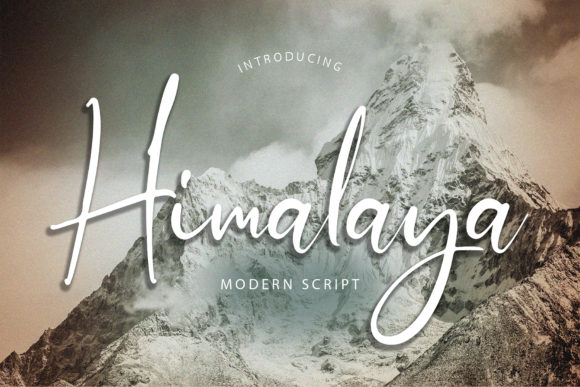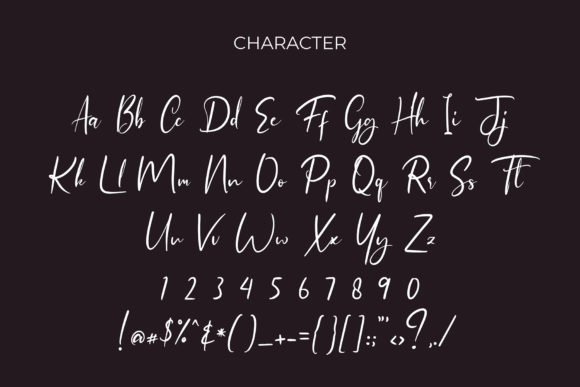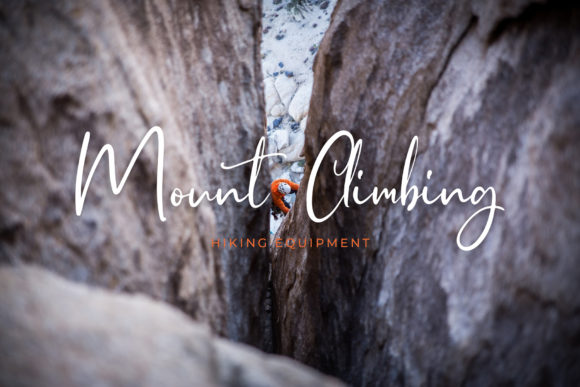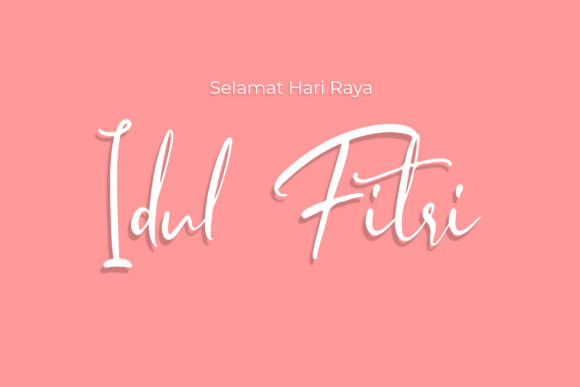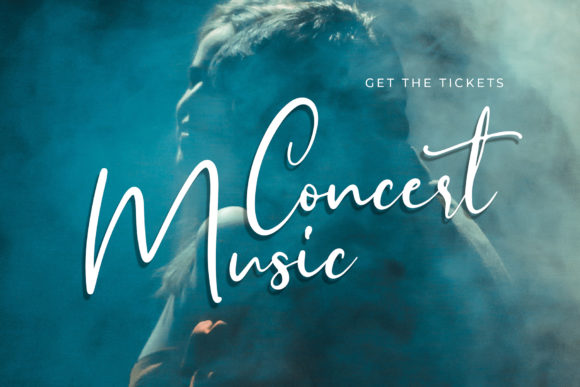
Himalaya Font
About Himalaya Font
Himalaya is a modern and casual handwritten font with an incredibly friendly feel. Whether you’re looking for fonts for Instagram or calligraphy scripts for DIY projects, this font will turn any creative idea into a true piece of art!